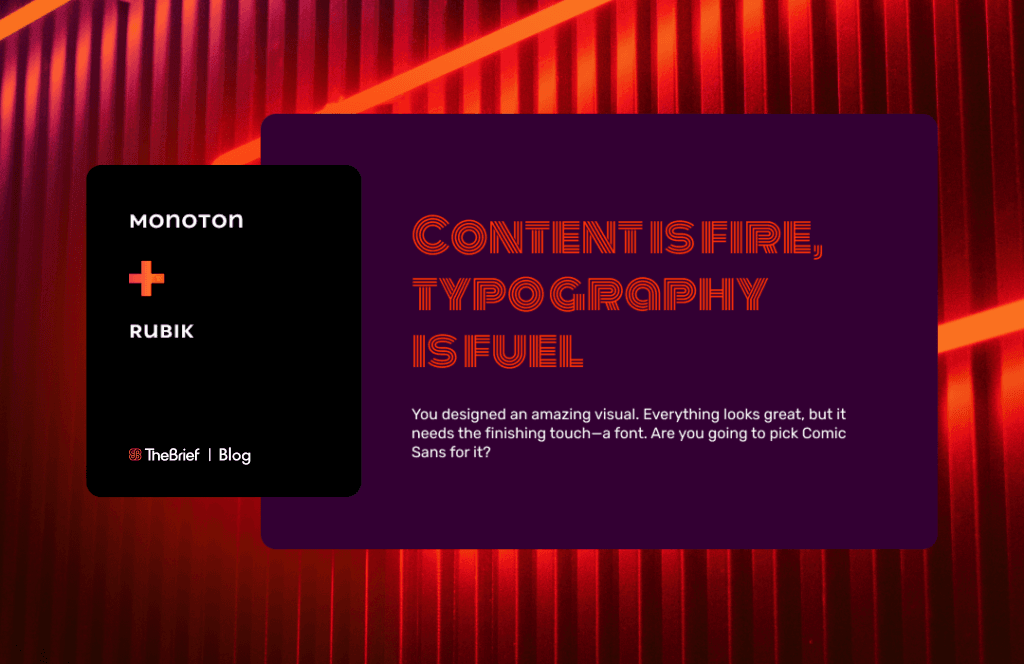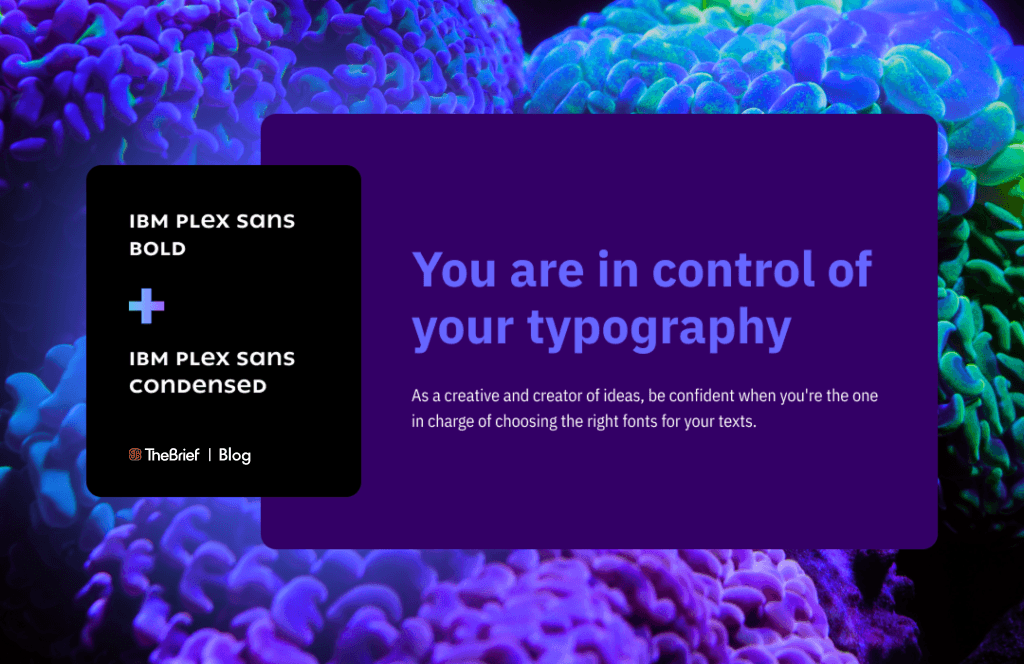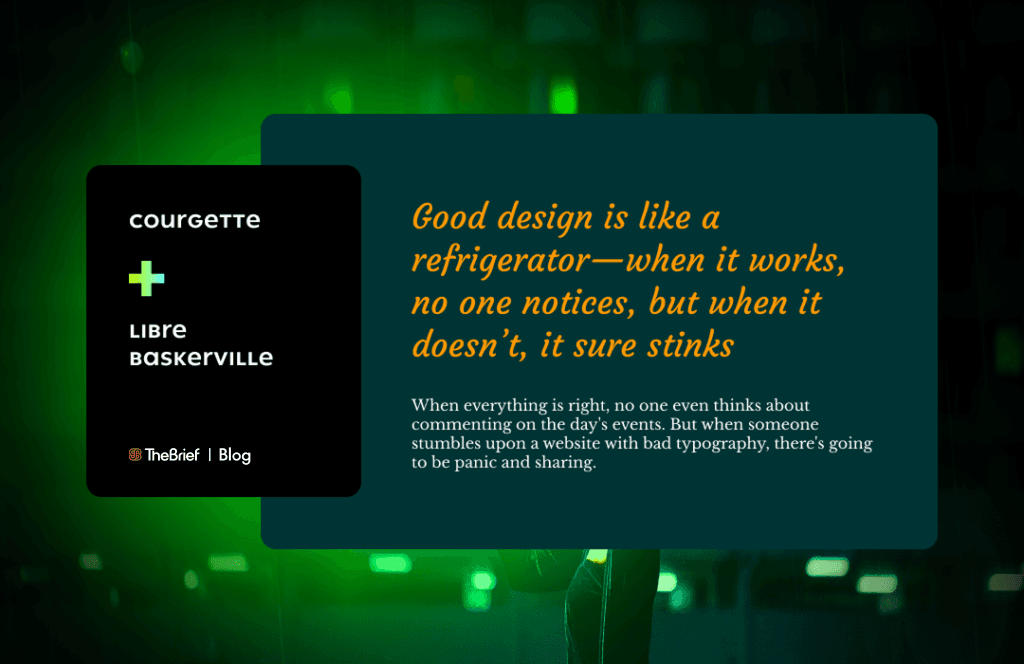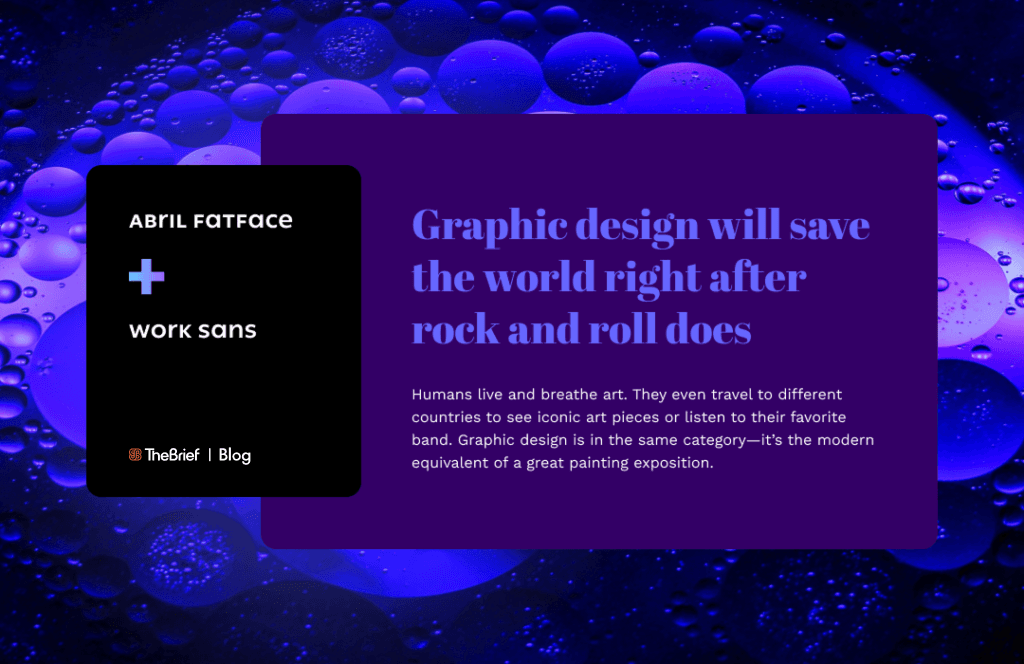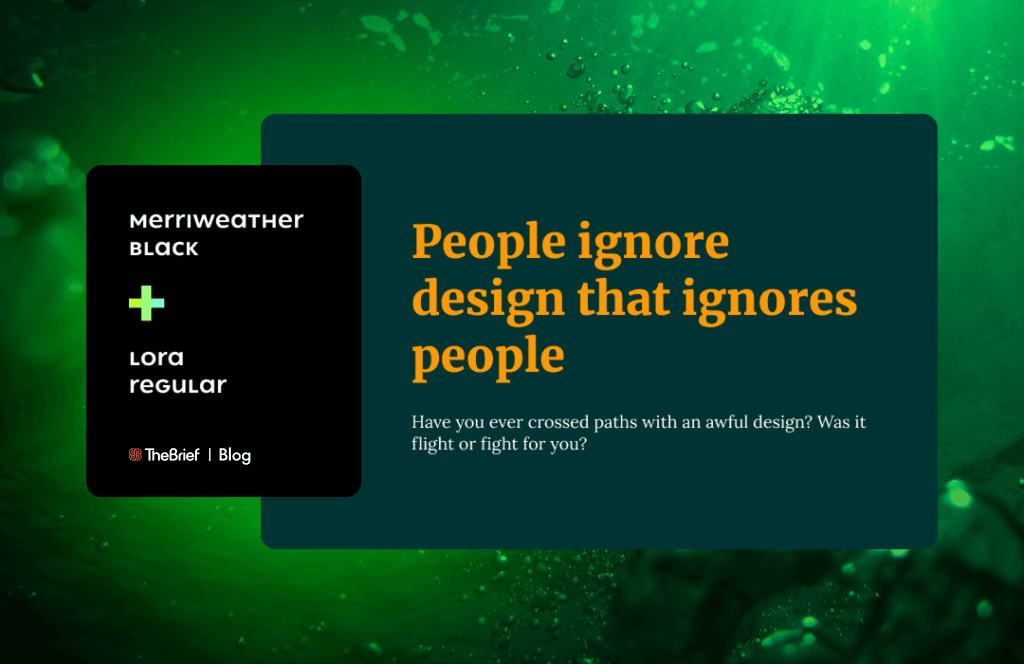
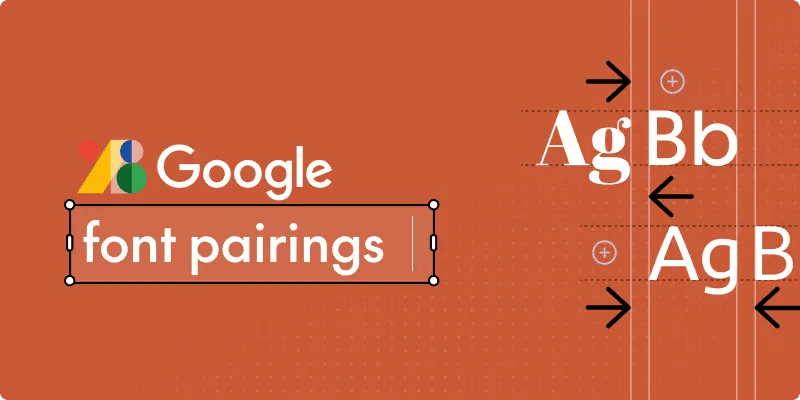
Finding the perfect font pairing is easier than finding your soulmate. Usually, you can spot bad font combinations from a mile away, even if you're not a graphic designer. You simply look at a design, and it’s clear that the font pairings don’t work. The right fonts—paired with a strong visual like a clean black wallpaper background—can instantly elevate the entire design.
While it's significantly more challenging to make such assumptions about two people being together, one thing we're definitely good at is helping you decide which are the best Google font combinations for your project or to make social media banners that will look smashing.
You obviously want it to match your brand's identity and be aesthetically pleasing at the same time.
After all, you can't send the right message if your audience finds it harder to read it. Or even worse, people will just ignore it because it won't seem like you put much effort into it.
The good news is that our goal is to help you avoid this kind of reaction.
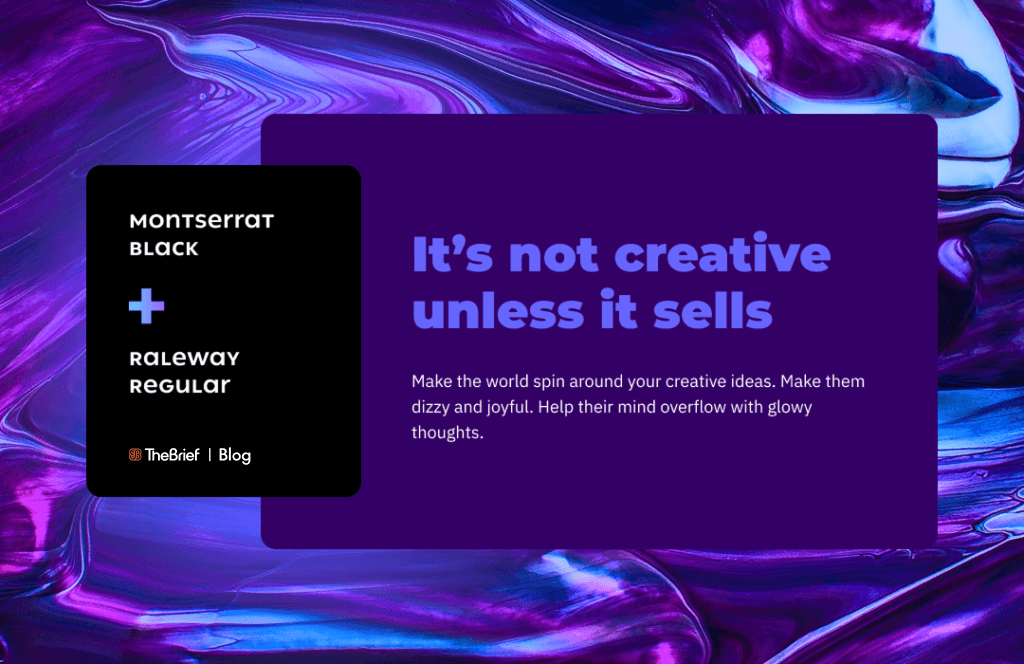
Montserrat is a font designed by Julieta Ulanovsky, Sol Matas, Juan Pablo del Peral, and Jacques Le Bailly, who wanted to grasp in a font's style the traditional Montserrat neighborhood of Buenos Aires. Because urbanization changes almost everything in a city, they wanted to save a bit of its tradition in a typeface.
In this geometric yet informal and pleasant to the eye sans-serif typeface, you'll find different weights, according to where you plan to use it. For headlines, Montserrat Black works like a charm.
The Montserrat family has two other versions: Alternates and Subrayada. Alternates has all the letters more rounded, while Subrayada (which means underlined in Spanish) works in headlines, as it resembles a display font that catches any viewer's eye. So, you can create a beautiful Montserrat font pairing without leaving this font family.
If you're looking for something else and want a perfect Google font pairing, mix this classic font with the Raleway typeface.
Raleway is a sans-serif font, initially designed by Matt McInerney in just one thin weight, and it will help you create the ideal look in a Montserrat font pairing. The Raleway family expanded into nine weights with the help of Pablo Impallari and Rodrigo Fuenzalida.
This font has a display font alternative, Raleway Dots, which you can use for bold, glossy headlines.
If you want to create a gorgeous Montserrat font pairing, the elegant simplicity of Raleway typeface works ideally here. They both have strong personalities but don't exclude each other. They instead help each other shine in a perfectly balanced look.
The Lobster font was designed by Pablo Impallari, and it's a delightfully bold condensed script font, which makes an attractive yet slightly playful headline.
The Lobster typeface is an OpenType format (which means it’s scalable, and it offers support for the international character set) with numerous variants of the same letter that automatically offers hundreds of ligatures and options for any platform that supports these formats.
Because Lobster font is perfect for headlines but would make a longer text difficult to read, you can pair it with Open Sans font.
This is a humanist sans serif typeface, designed by Steve Matteson, which has a clean, open, and round format, making it pleasantly readable on print, web, and mobile screens.
Besides its different weights, Open Sans has a Condensed alternative, which can work for headlines.
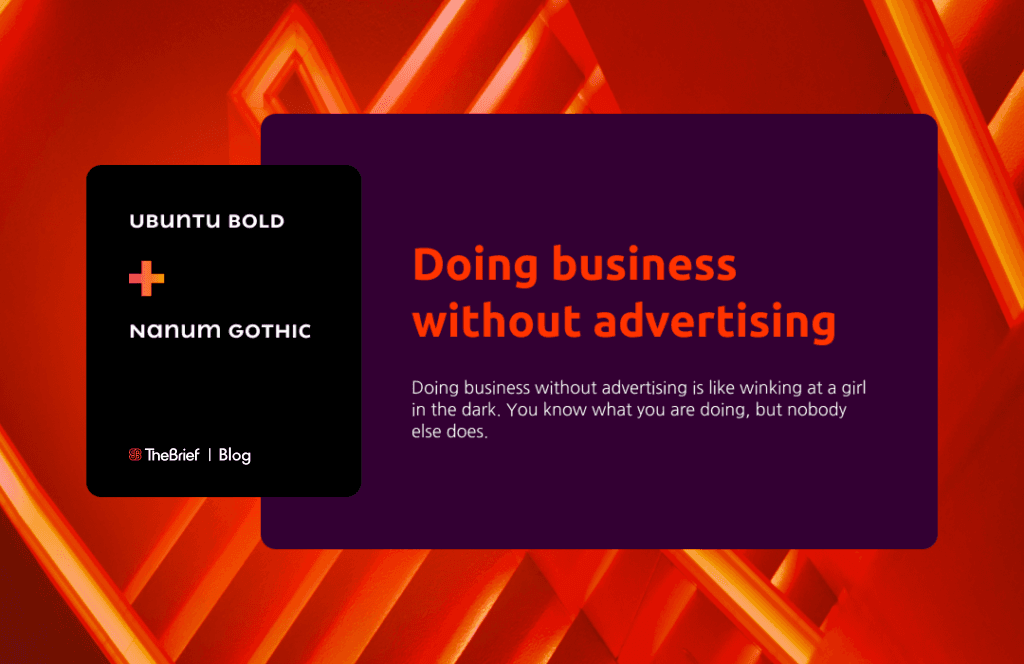
The Ubuntu Font Family is designed by the Dalton Maag company. It's an OpenType font, keeping some of the characteristics of Ubuntu software. It’s a sans serif typeface, offering increased legibility on every screen.
So, you can use it in its lightweight for longer text or make it bold and write your headline in this font. It works either way. This font has two other fonts in the Ubuntu font family: Ubuntu Condensed and Ubuntu Mono.
And to add another pairing to the successful Google font combinations, mix the Ubuntu font with Nanum Gothic.
The latter is a contemporary sans serif font, designed by Sandoll Communications, very friendly, and very much recommended for the digital space.
Nanum Gothic is part of the Nanum fonts, which have a set of high-quality Unicode fonts designed for the Korean-language script (Hangeul) that also support Latin.
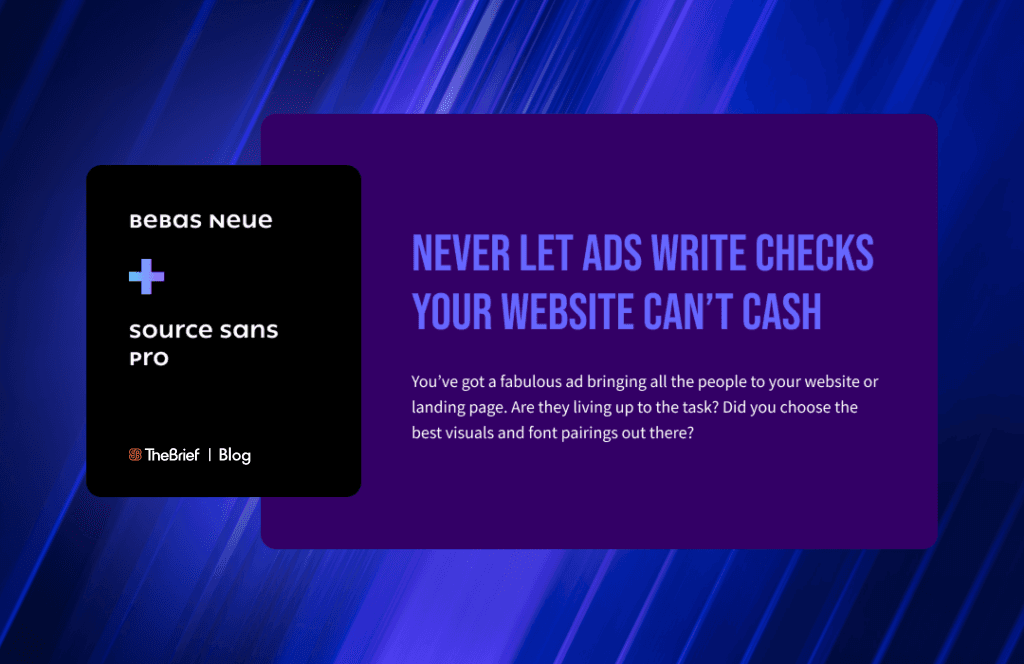
Bebas Neue was designed by Ryoichi Tsunekaw with a clean, condensed style for its letterforms, making this font just perfect for headlines.
It's a bold, uppercase-only display font that shows confidence just by looking at it. This is the reason why it also works like magic in social media visuals or in YouTube thumbnails.
Pack it with Source Sans Pro and get that kind of equity we all strive for in our texts. It dulls the strong vibe of Bebas Neue in a positive way.
The Source Sans Pro is a sans serif font designed by Paul D. Hunt. It’s a safe and suitable choice for longer texts. And when you add the Bebas Neue font pairing, you’ll impress everyone.
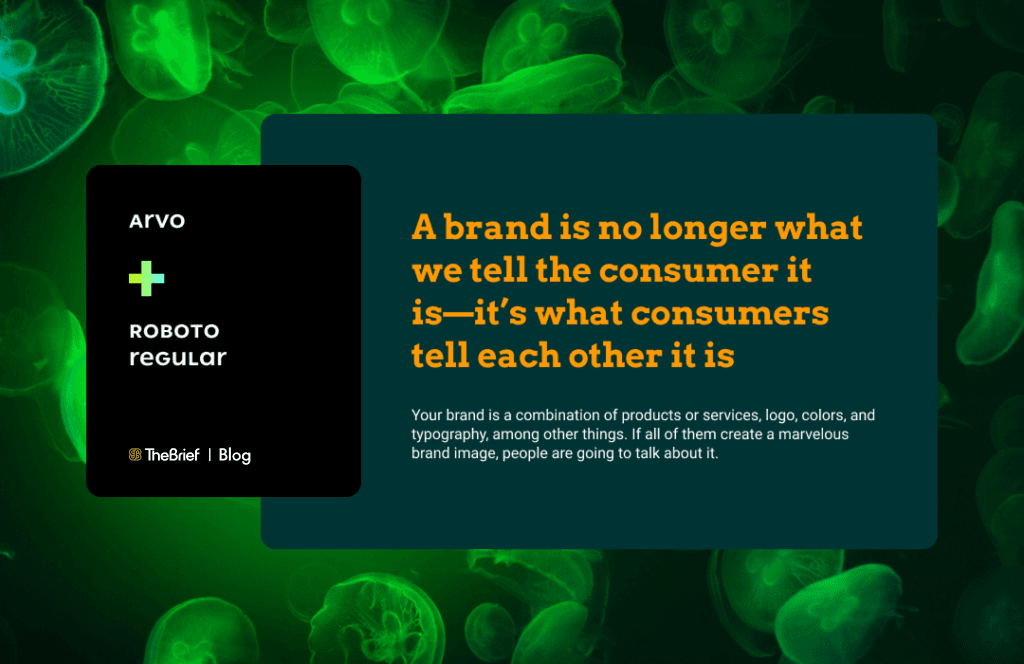
Whether you want a modern font pairing or opt for a classical one, you now have the best inspiration to choose complementary fonts that take your design to the next level.